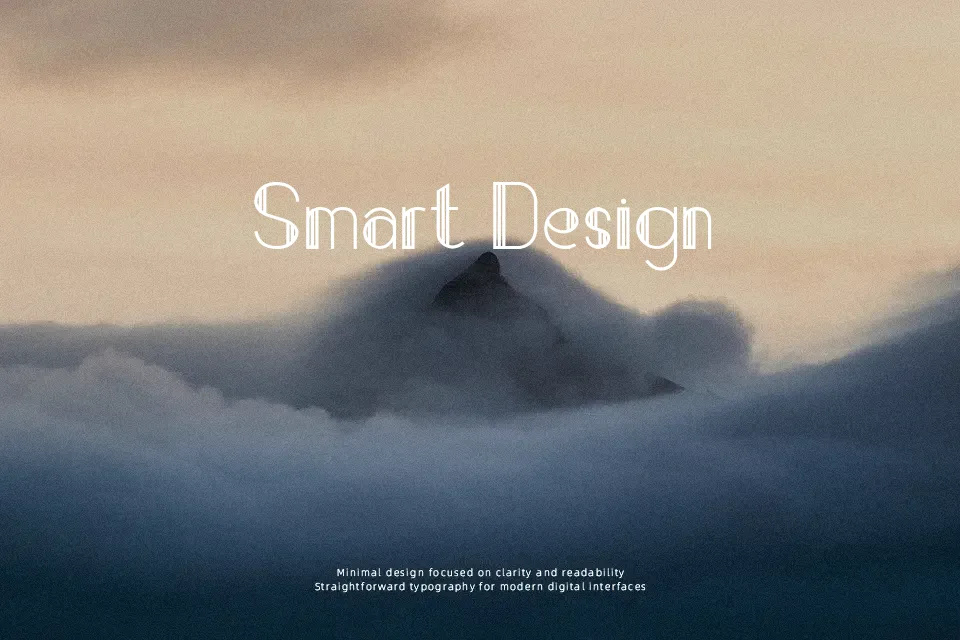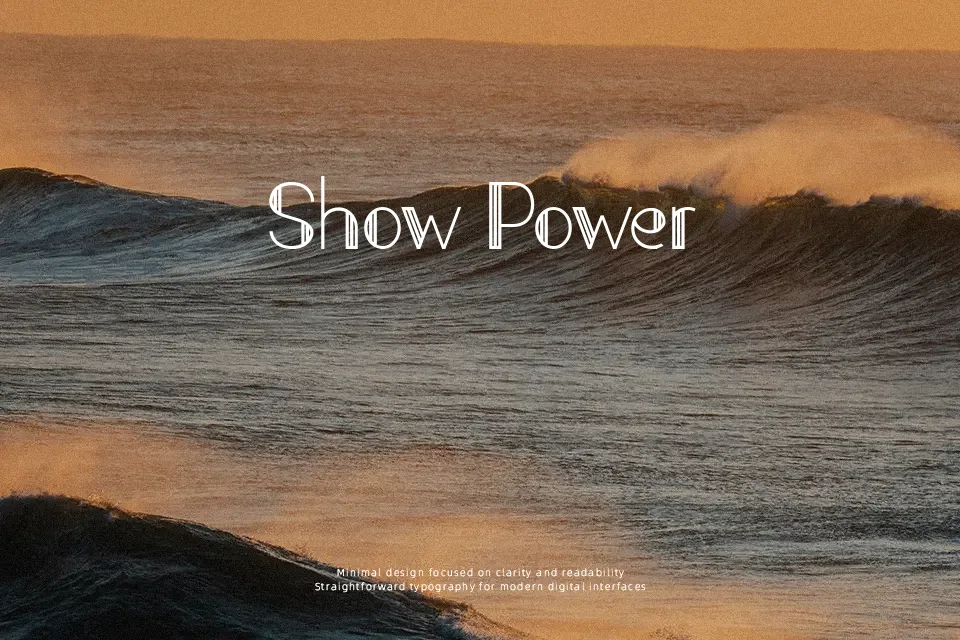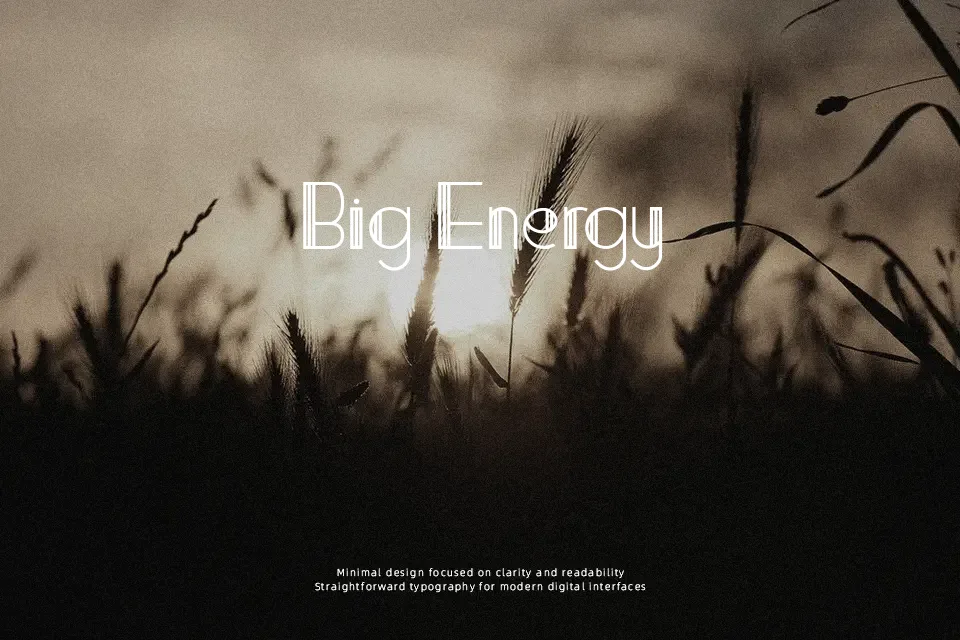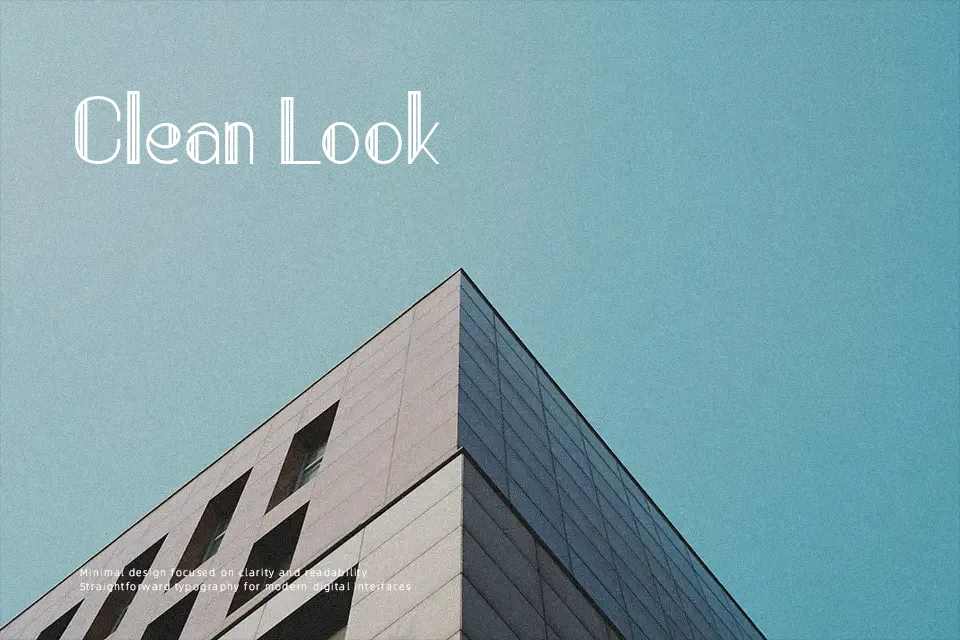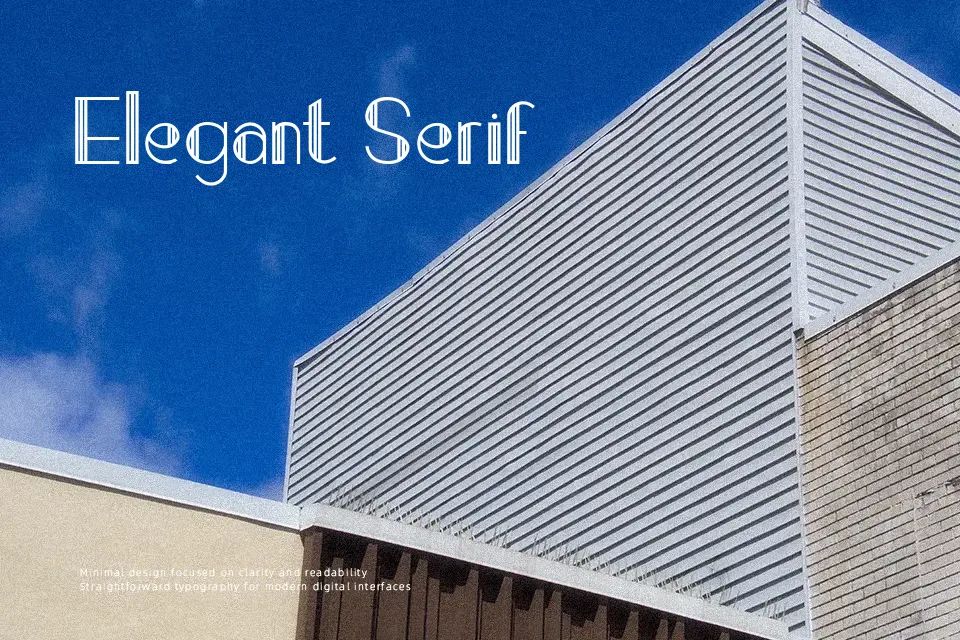
Strip Deco Font
Strip Deco Font features a striking linear architecture inspired by classic streamlined Art Deco typography. Parallel interior inline cuts carve through bold stem weights, establishing strong character contrast alongside rigid geometric proportions. The letterforms maintain consistent vertical alignment with moderately open tracking, ensuring distinct silhouettes across headline compositions and product packaging. At large display scales, the typeface delivers sharp visual definition that commands immediate reader attention on posters and event collateral. However, the intricate internal striping tends to blur and lose fidelity when scaled down, making the design less suitable for continuous body paragraphs or compact interface labels.
Best For: vintage cocktail menus,retro event posters,luxury packaging titles,hospitality branding
Not Ideal For: continuous body paragraphs,mobile interface labels,technical documentation,spreadsheet data